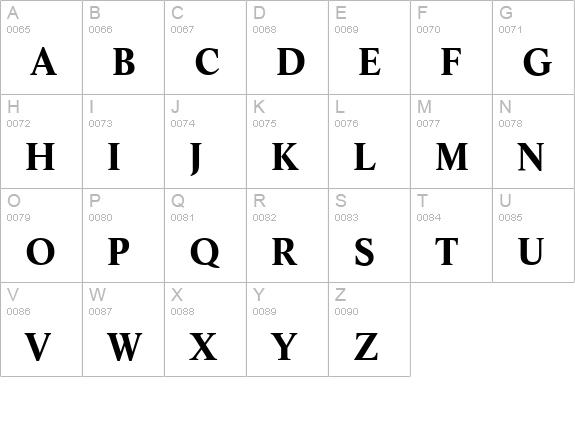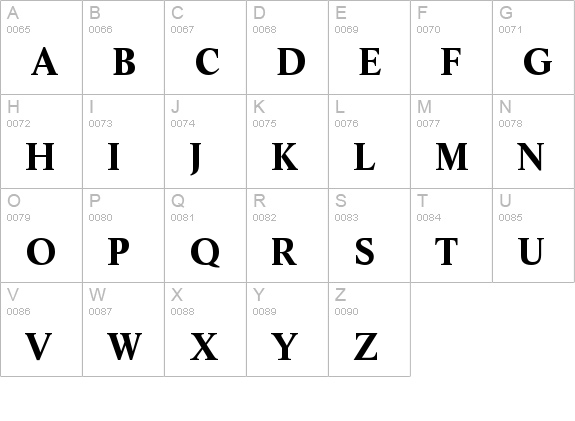
Lyon-Bold Font Details
Lyon-Bold is a strong, high-contrast variant in the Lyon typeface family \xE2\x80\x94 well suited to headlines, attention-grabbing titles, and strong calls-to-action.
Introducing Lyon-Bold font, a versatile and modern typeface that exudes strength and sophistication. With its bold and commanding presence, Lyon-Bold is perfect for creating eye-catching headlines, logos, posters, and more. The clean lines and sharp angles of this font make it ideal for projects that require a strong visual impact. What makes Lyon-Bold font even more appealing is that it is available for free download at FontsMarket.com. This means you can easily access this top-quality font and incorporate it into your designs without any cost. Whether you are a designer, student, or hobbyist, Lyon-Bold font offers a professional and stylish touch to your work while being readily accessible to all. Don't miss out on this opportunity to enhance your projects with the striking Lyon-Bold font, available for free at FontsMarket.com.